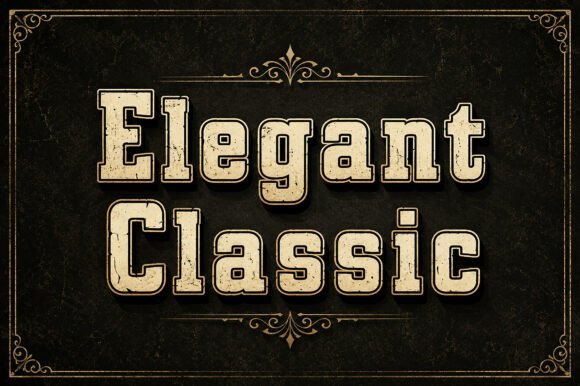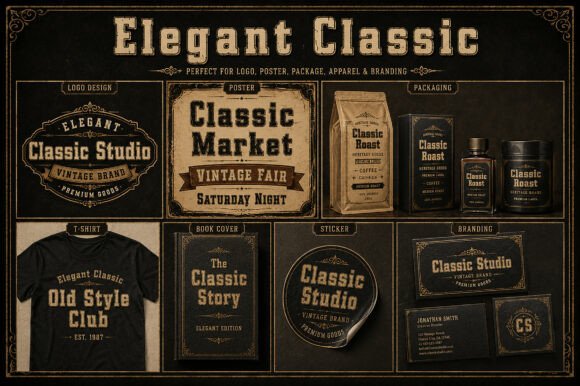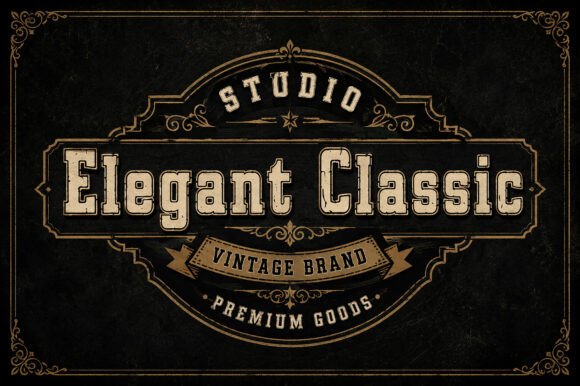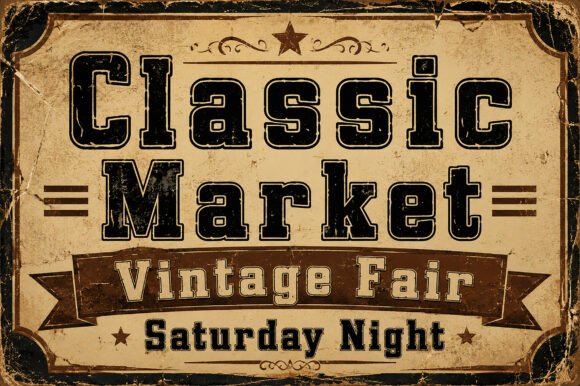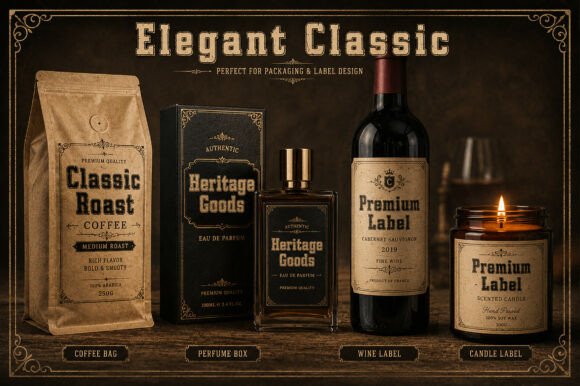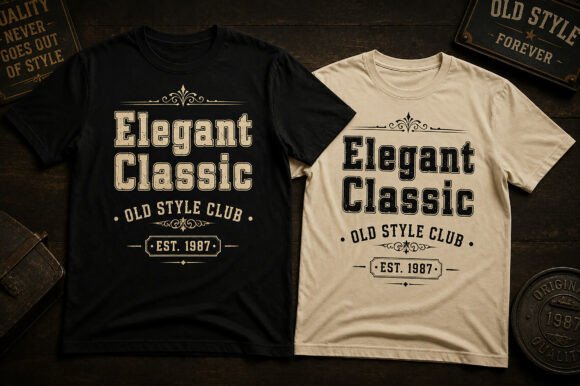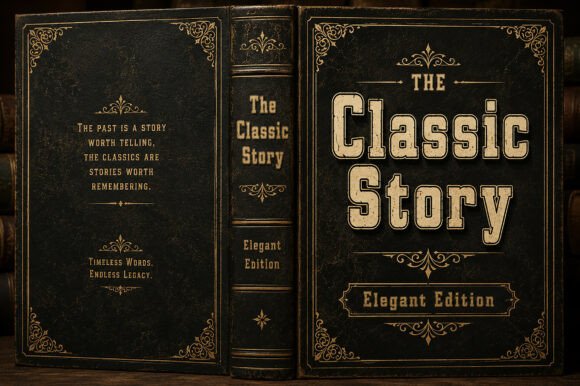
Step Back in Time with Elegant Classic Font
Do you remember the thrill of stumbling upon an old, dusty sign while driving down a rural road? The faded letters, the worn edges, and the nostalgic charm that seemed to transport you to another era? That’s the essence of Elegant Classic Font – a vintage display font that captures the spirit of classic Western signs and heritage typography.
Designed to evoke a sense of rugged charm, Elegant Classic Font is a beautifully crafted slab-serifed marvel that’s perfect for designers looking to add an authentic retro texture to their projects. Its strong handcrafted personality makes it an ideal choice for logos, posters, clothing lines, packaging, and merchandise design. Whether you’re working on a vintage-inspired campaign or simply want to add a touch of elegance to your design, Elegant Classic Font is the perfect tool to help you achieve your creative vision.
Elegant Classic Font Key Features
- Font Family: Elegant Classic Font is a serif font family designed to evoke a sense of elegance and sophistication.
- Unique Characteristics: Features a classic, yet refined design with subtle flair and elegant curves, making it perfect for luxury brands, high-end publications, and special occasions.
Elegant Classic Font Review
Overall, I think the Elegant Classic Font is a solid choice for designers looking for a timeless, elegant look. ✨ The font’s classic serif style and subtle flair make it perfect for print materials, business cards, and even wedding invitations.
The Elegant Classic Font’s strengths include:
- ✨ High legibility, making it easy to read in both print and digital formats
- ✨ Versatility in pairing with other fonts, allowing for a wide range of design possibilities
- ✨ A classic, sophisticated look that evokes a sense of luxury and professionalism
- ⚠️ Limited font sizes and weights may restrict creative freedom in certain design projects
- ⚠️ The font’s classic style may not be as bold or eye-catching as some other fonts on the market
Overall, I would recommend the Elegant Classic Font for designers looking for a reliable, elegant font that exudes sophistication and professionalism. While it may not be the most exciting or cutting-edge font, it’s a solid choice for a wide range of design projects.
For a more elegant look, pair the font with a classic color scheme and minimal design elements.
For a more polished look, use the font in conjunction with high-quality images and graphics.
For a more professional look, pair the font with a clean and modern design.
The Elegant Classic Font is suitable for:
1. Business cards and stationery.
2. Wedding invitations and event materials.
3. Branding and marketing materials.
4. Formal documents and reports.
Yes, the Elegant Classic Font is optimized for digital use and includes advanced features such as hinting and kerning to ensure optimal legibility on screens. The font is also designed to work well at a variety of resolutions and screen sizes.